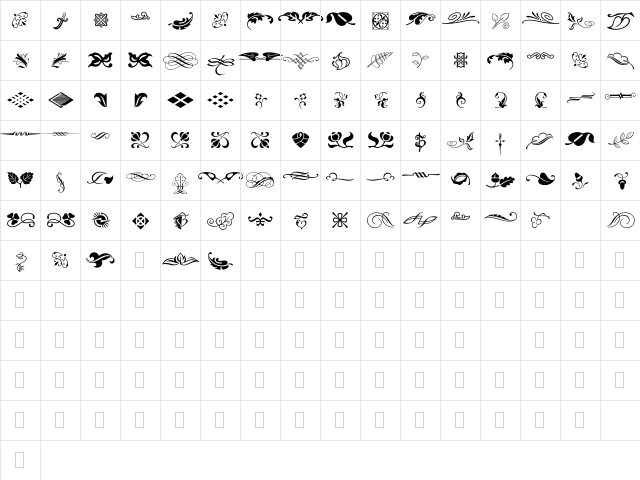
Type Embellishments One Regular
| Foundry | International Typeface Corporation |
Design Context for Type Embellishments One Typeface
Type Embellishments One is a composed and adaptable typeface that performs quietly and consistently across a wide range of design contexts.